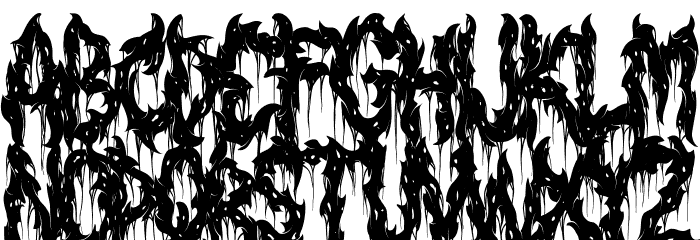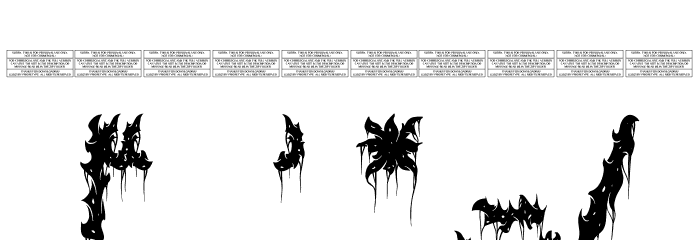
Deadwax DEMO Hard Font
This font features a highly decorative and artistic style, characterized by its dripping, liquid-like appearance. The letters are bold and dramatic, with an organic flow that resembles melting or dripping paint. This unique design gives it a dark, mysterious, and somewhat chaotic feel. The font is highly stylized, making it stand out with its intricate details and bold presence. It is not suitable for body text due to its complex design but works well for creating impactful headlines or artistic projects where a strong visual statement is needed.
A bold, dripping, liquid-like decorative font with a dark and mysterious style.
- Font: Deadwax DEMO Hard
- Proposed Projects: Ideal for horror-themed posters, album covers, Halloween invitations, or any project requiring a dramatic and artistic touch.
- Character Spacing: Tight